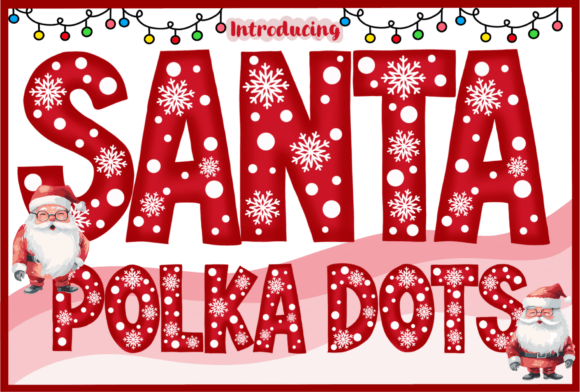
Santa Polka Dots Font: The Ultimate Holiday Decorative Font
Are you looking for a festive and fun way to add some holiday cheer to your cards, banners, and decorations? Look no further than the Santa Polka Dots Font! This delightful font is specifically designed to bring a touch of Christmas magic to your designs, with each letter featuring a cheerful, polka-dot pattern that’s sure to put a smile on everyone’s face.
What is Santa Polka Dots Font?
Santa Polka Dots Font is a decorative font that is perfect for the holiday season. Each letter, number, and symbol has been carefully designed to feature a fun, polka-dot pattern that’s reminiscent of Santa’s iconic red and white suit. The font is highly versatile and can be used for a wide range of holiday-themed designs, from Christmas cards and invitations to banners, decorations, and more.
Key Features of Santa Polka Dots Font
- Festive and Fun Design: The Santa Polka Dots Font features a unique and playful design that’s perfect for adding a touch of holiday cheer to your designs.
- Holiday-Themed: Each letter has a cheerful, Christmasy look that’s sure to get you in the holiday spirit.
- Highly Versatile: The font can be used for a wide range of holiday-themed designs, from cards and invitations to banners and decorations.
Uses for Santa Polka Dots Font
The Santa Polka Dots Font is perfect for a wide range of holiday-themed designs, including:
- Christmas Cards: Add a touch of festive fun to your holiday cards with the Santa Polka Dots Font.
- Holiday Invitations: Create fun and festive invitations for your holiday parties and events.
- Banners and Signs: Use the Santa Polka Dots Font to create eye-catching banners and signs for your holiday decorations.
- Decorations: Add a touch of holiday cheer to your decorations with the Santa Polka Dots Font.
Tips for Using Santa Polka Dots Font
- Pair with Other Festive Fonts: Pair the Santa Polka Dots Font with other festive fonts to create a unique and eye-catching design.
- Use Bright and Bold Colors: Use bright and bold colors to match the festive and fun design of the font.
- Experiment with Different Sizes: Experiment with different sizes and styles to find the perfect look for your design.
Benefits of Using Santa Polka Dots Font
- Adds a Touch of Holiday Cheer: The Santa Polka Dots Font is sure to add a touch of holiday cheer to your designs.
- Highly Versatile: The font can be used for a wide range of holiday-themed designs.
- Unique and Eye-Catching: The Santa Polka Dots Font is sure to make your designs stand out from the crowd.
In conclusion, the Santa Polka Dots Font is a festive and decorative font that’s perfect for adding a touch of holiday cheer to your designs. With its unique and playful design, highly versatile uses, and easy-to-use installation process, this font is sure to become a favorite among designers and holiday enthusiasts alike. So why wait? Download the Santa Polka Dots Font today and start spreading holiday joy in your cards, banners, and decorations!
- Q: What is the Santa Polka Dots Font?
- A: The Santa Polka Dots Font is a decorative font that features a festive and fun design with holiday-themed polka dots.
- Q: What can I use the Santa Polka Dots Font for?
- A: The Santa Polka Dots Font can be used for a wide range of holiday-themed designs, including Christmas cards, invitations, banners, and decorations.